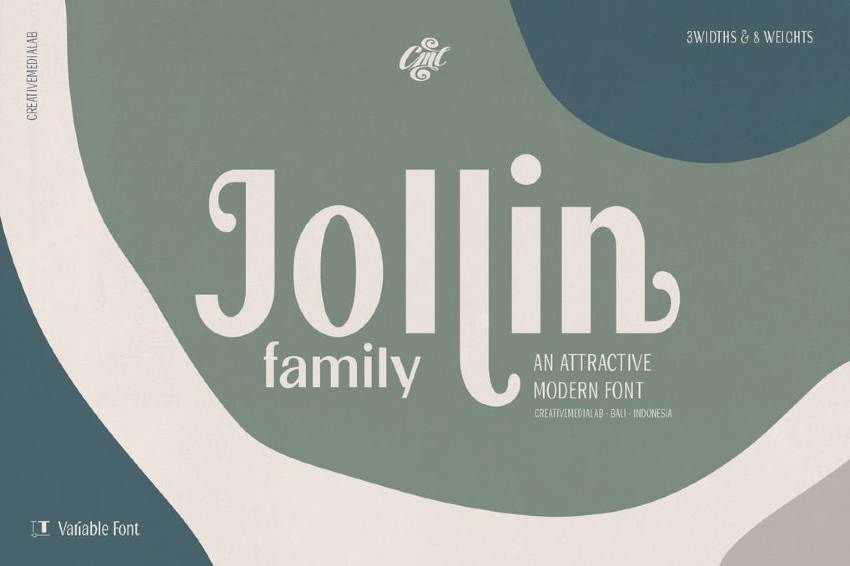
How to Use Variable Fonts on the Web
Variable fonts provide designers with a single font file that behaves like multiple fonts. The new OpenType format allows us to quickly adjust certain attributes of a typeface, such as width, weight, or slant. Flexible typography and live font interpolation have finally arrived to the web.
Are you wondering, "What are variable fonts?" Variable fonts were developed as the joint effort of the four biggest tech companies involved in type design—Apple, Google, Microsoft, and Adobe.
As the name suggests, variable fonts allow designers to derive an unlimited number of font variants from the same font file. This way it becomes possible to adjust the typeface to different devices, viewports, orientations, and other design constraints.
Top 3 Variable Fonts From Envato Elements
1. Knicknack (OTF, WOFF)
Knicknack
This OpenType variable font features two styles and at least five weights. It comes with a variable font size slider to control the weight of the font.
2. Manufaktur (OTF, TTF, WOFF)
Manufaktur
Industrious, gritty, and powerful, Manufactur stands up for itself. This premium variable font is inspired by old cast iron signs. The modern MANUFAKTUR is now an OpenType variable font with thousands of combinations of width and weight. You can control the variable font size, width, and weight via a slider or with code.
MANUFAKTUR consists of:
• 5 weights (Light, Medium, Bold, Extra Bold, and Black)
• 3 widths (Normal, Expanded, and Ultra Expanded)
• 3 styles (Normal, Italic, and Rough)
3. Figuera Variable Fonts (OTF, TTF, WOFF)
Figuera Variable Fonts
Figuera is a detailed decorative typeface, with many variants which you can control to your liking. This variable font was inspired by a serif Victorian typeface style. You can create a custom variable font size, width, and weight in the available font files.
Why Use Variable Fonts
Variable fonts significantly reduce the limitations of current font formats. Today’s web fonts are inflexible and don’t scale very well; they only provide us with some fixed styles with names like “Light”, “Bold”, or “Extra Bold”.
There are even typefaces that only have one weight or slant variant. With a variable approach, however, we have access to an infinite flexibility of weight, slant, x-height, slabs, rounding, and other typographical attributes.
Better still, they improve performance. Web fonts as we know them need each font variant to be stored in a separate file. For instance, this is how the folder of the Roboto web font looks:
Contents of Roboto web font folder
Variable fonts use a single font file that the browser only has to load once. Upon being loaded, it can serve all the variants from just that one binary.
So here's a brief comparison:
• Roboto: twelve font files, twelve variants
• Variable fonts: one font file, unlimited variants
As you can already imagine, our typographical options grow incredibly with this newer approach. From practical options through subtle, all the way to the more... experimental!
From OTF and TTF to WOFF Font Format
So what file format do variable fonts use? In their earliest days, they were created as part of the OpenType font format:
“OpenType fonts may have the extension .OTF or .TTF, depending on the kind of outlines in the font and the creator's desire for compatibility on systems without native OpenType support.” – Microsoft Docs
To be completely accurate, the power to include variations was introduced in version 1.8 of the OpenType font file specification. OpenType is an extension of the TrueType font format, so variable fonts were available as either .otf or .ttf files.
However, nowadays most variable fonts are packaged as WOFF2 fonts (WOFF2 being the recommended upgrade from WOFF). These are still OTF or TTF fonts but use a specific web-safe compression technique. WOFF was the result of collaborative work by the Mozilla Foundation, Microsoft, and Opera Software.
Variable fonts are still relatively new, but browser support is getting there already. And since the October 2017 release, Photoshop and Illustrator also support them.
We can expect this new approach to bring incredible changes in the world of web typography. As it’s getting more and more support, it’s time to take a plunge into learning and experimenting.